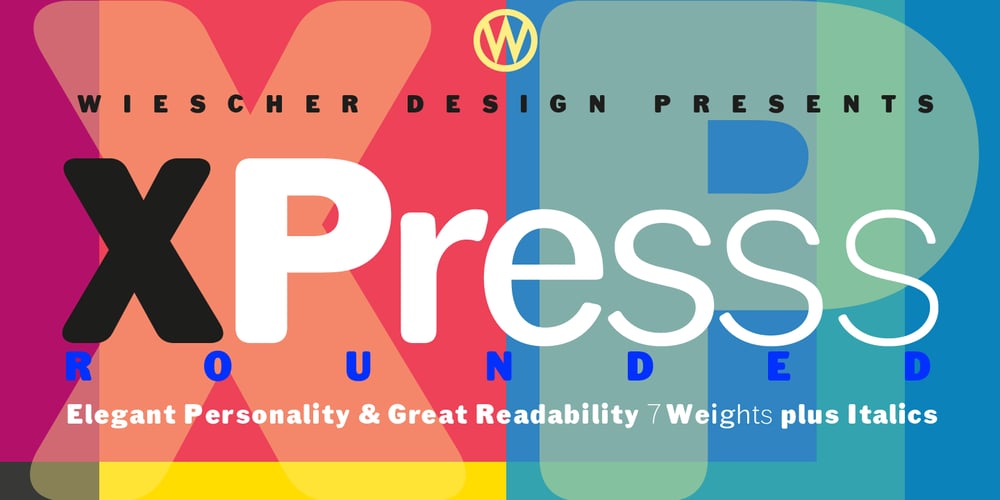
Xpress Rounded Font Family was designed by Gert Wiescher and published by Wiescher Design. Xpress Rounded contains 14 styles and family package options. »XPress-Rounded« is my new addition to »XPress«, my Sans-Serif that impresses – especially in small sizes – with its outstanding readability. »XPress-Rounded« looks very different, almost like a completely new font. But the rounded version has the same seven precisely calibrated weights from »Thin« to »Heavy« and its corresponding italics make this font-family universally usable. The »XPress« fonts got their bearings from the fabulous American »Gothic« fonts of the twenties of last century. Modern, present day elements, high lowercase letters and infinitesimal elegant slight curves in start- and end strokes make the font family not only great for body copy, but also very useful in advertising. Enjoy! »XPress-Rounded« ist meine neue Erweiterung zur »XPress« Familie, die durch aussergewöhnliche Lesbarkeit auffällt. »XPress-Rounded« sieht jedoch vollkommen anders aus als sein älterer Bruder. »XPress-Rounded« hat jedoch die selben sieben präzise aufeinander abgestimmten Schnitte von »Thin« bis »Heavy« und die dazu passenden Kursiven. Das macht die Schriftfamilie vielseitig einsatzfähig. Die »XPress« Schriften basieren auf der Formensprache der grossen amerikanischen Groteskschriften der zwanziger Jahre des letzten Jahrhunderts. Durch moderne Formelemente, große Mittellängen und unendlich leichte, elegante An- und Abstriche ist die Schrift jedoch nicht nur als Textschrift, sondern auch im gesamten Bereich der Werbung vielseitig einsetzbar. Viel Erfolg!